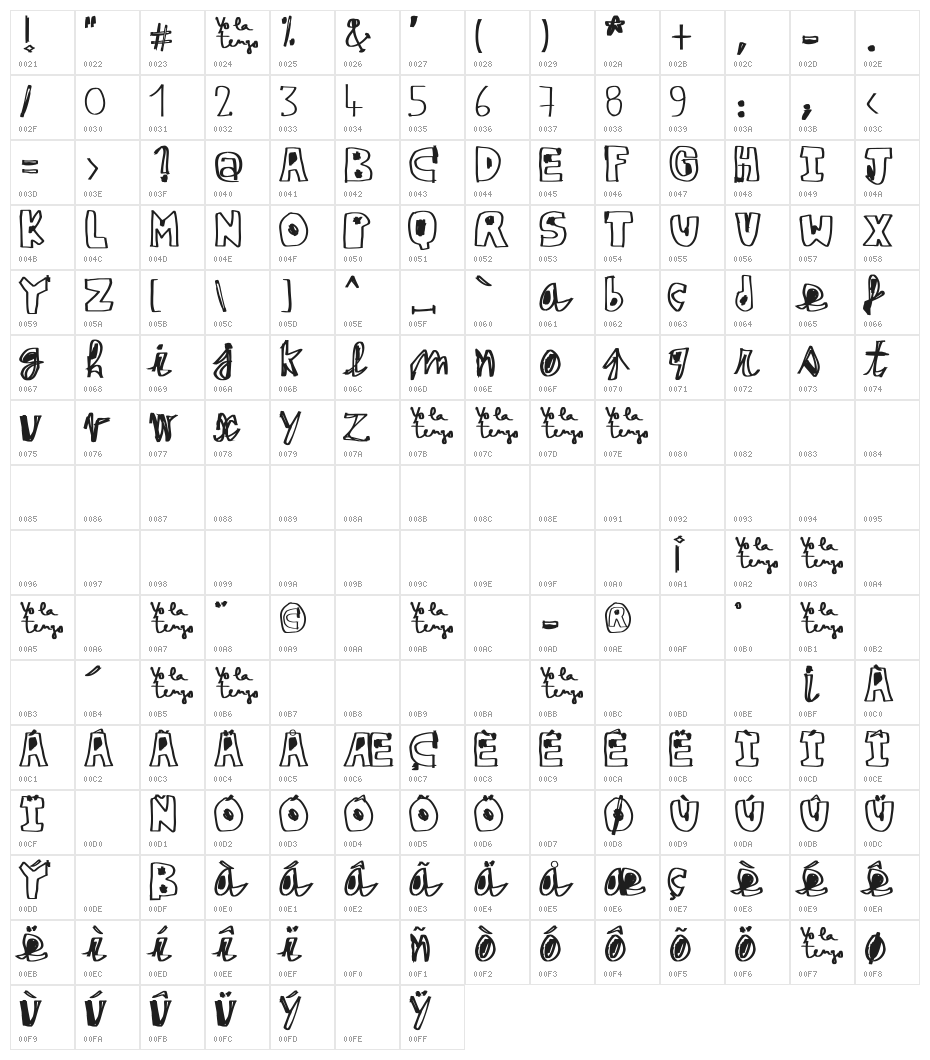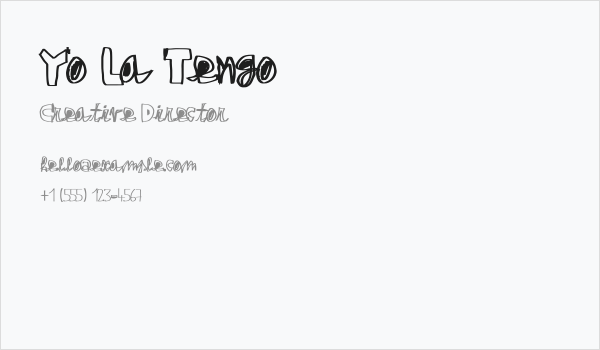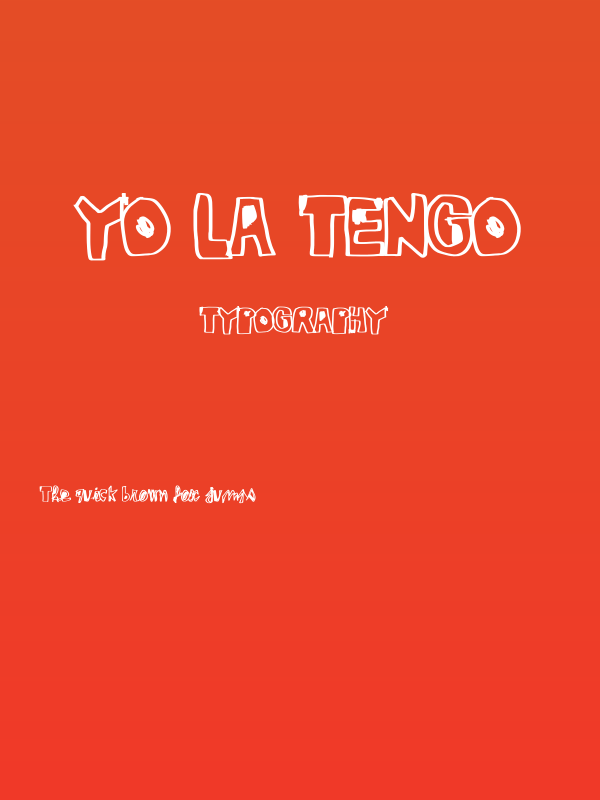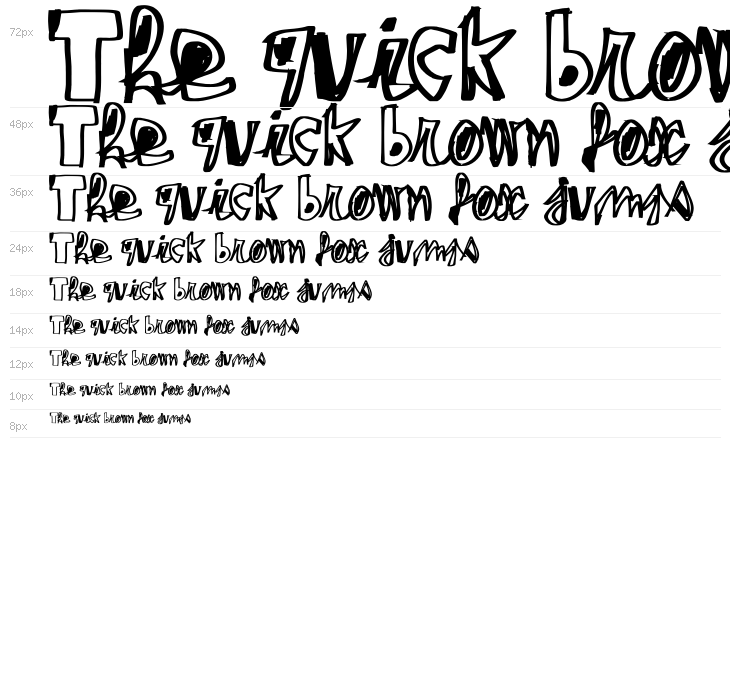
Yo La Tengo Font
Yo La Tengo Description
This font features a playful and artistic style with a hand-drawn appearance. The uppercase letters are bold and slightly irregular, giving a sense of spontaneity and creativity. The lowercase letters maintain this whimsical feel, with some characters having exaggerated loops and curves. Numbers are tall and slender, matching the overall quirky aesthetic. Special characters are uniquely styled, adding to the font's charm. This font is perfect for projects that require a fun and informal touch, such as children's books, creative posters, or artistic branding.
| Proposed Projects | Ideal for children's books, creative posters, artistic branding, and informal designs. |